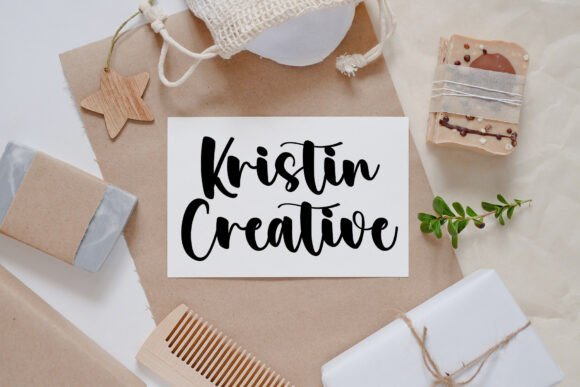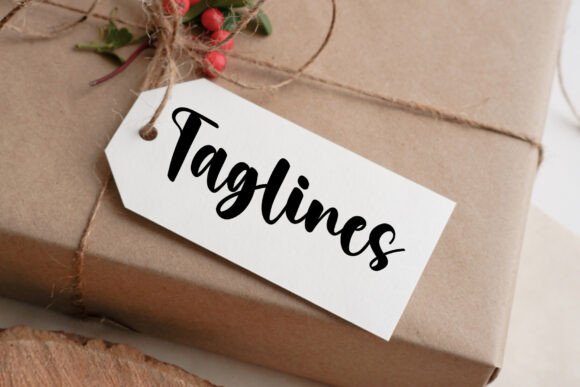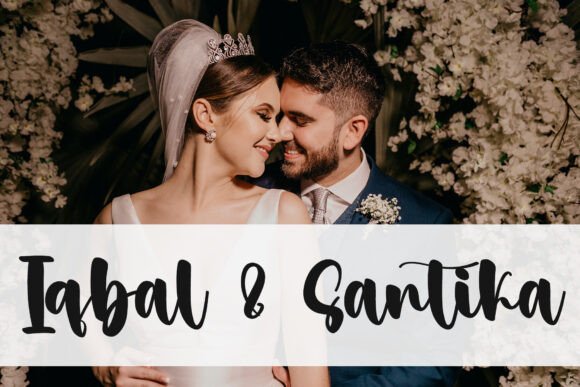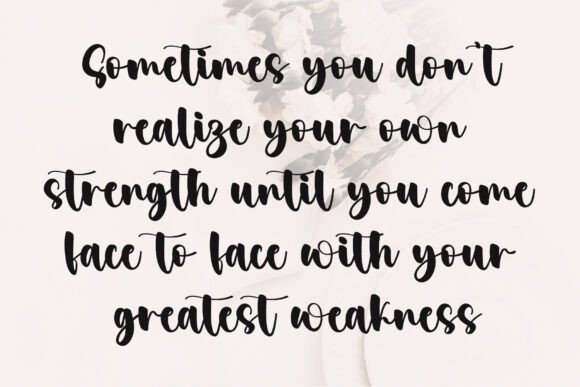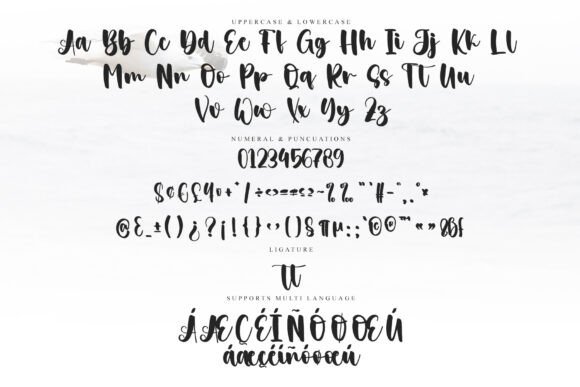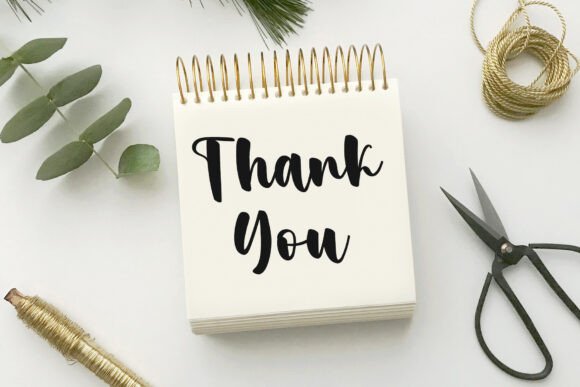
Introducing Chalkzone Font: The Sweet and Elegant Handwritten Font for Your Design Needs
Are you looking for a font that can add a touch of elegance and romance to your designs? Look no further than Chalkzone Font, a sweet and cursive handwritten font that is perfect for a variety of design projects. With its gentle and flowing curves, Chalkzone Font is sure to make your designs stand out and leave a lasting impression.
What Makes Chalkzone Font Special?
Chalkzone Font is a unique and versatile font that can be used for a wide range of design ideas. Its cursive and handwritten style gives it a personal and intimate feel, making it perfect for designs that require a touch of warmth and personality. Whether you’re working on a branding project, a wedding invitation, or a greeting card, Chalkzone Font is sure to add a joyful and romantic touch to your design.
Chalkzone Font is a highly versatile font that can be used for a variety of design projects, including:
- Branding: Use Chalkzone Font to create a unique and memorable brand identity that stands out from the crowd.
- Logo Design: Create a stunning logo that showcases your brand’s personality and style with Chalkzone Font.
- Wedding Designs: Add a touch of romance and elegance to your wedding designs, including invitations, programs, and decorations.
- Greeting Cards: Create beautiful and heartfelt greeting cards for special occasions, such as birthdays, anniversaries, and holidays.
- Fashion and Lookbook: Use Chalkzone Font to add a touch of style and sophistication to your fashion designs and lookbooks.
- Marketing Promotion: Create eye-catching marketing materials, such as brochures, flyers, and posters, with Chalkzone Font.
Why Choose Chalkzone Font?
There are many reasons why Chalkzone Font is the perfect choice for your design needs. Here are just a few:
- Elegant and Sophisticated: Chalkzone Font has a elegant and sophisticated style that is perfect for designs that require a touch of luxury and refinement.
- Cursive and Handwritten: The cursive and handwritten style of Chalkzone Font gives it a personal and intimate feel that is perfect for designs that require a touch of warmth and personality.
- Versatile: Chalkzone Font is highly versatile and can be used for a wide range of design projects, from branding and logo design to wedding designs and greeting cards.
- Easy to Read: Chalkzone Font is easy to read and understand, making it perfect for designs that require a clear and concise message.
How to Use Chalkzone Font
- Use it for Headings and Titles: Use Chalkzone Font for headings and titles to add a touch of elegance and sophistication to your design.
In conclusion, Chalkzone Font is a sweet and elegant handwritten font that is perfect for a variety of design projects. With its cursive and flowing curves, Chalkzone Font is sure to add a joyful and romantic touch to your designs. Whether you’re working on a branding project, a wedding invitation, or a greeting card, Chalkzone Font is the perfect choice for designers and crafters who want to create beautiful and elegant designs.